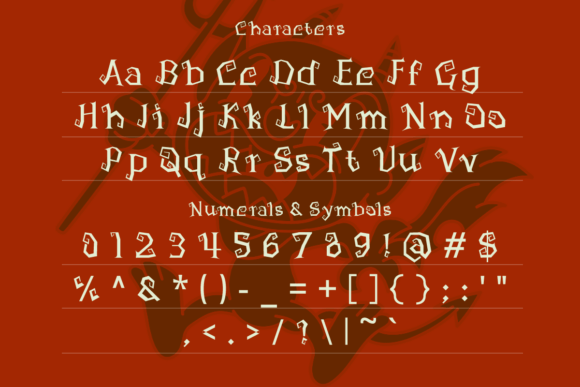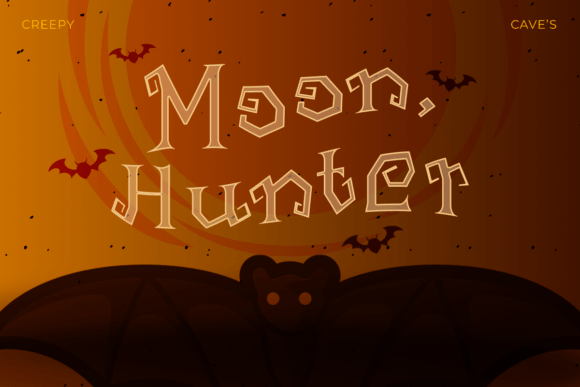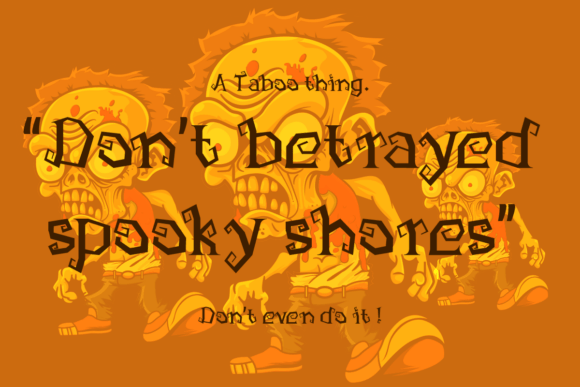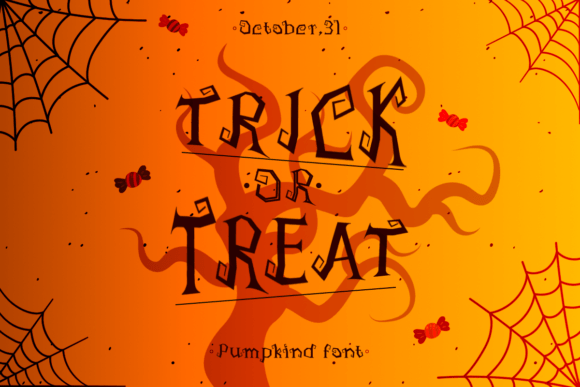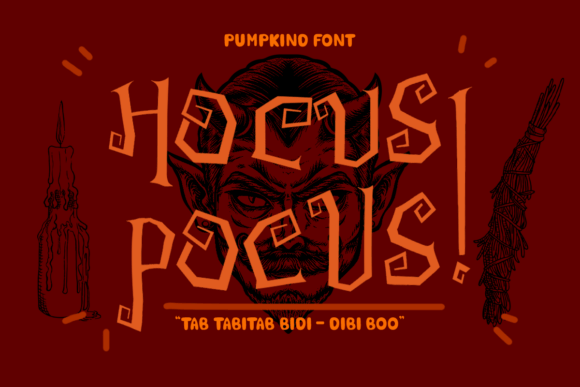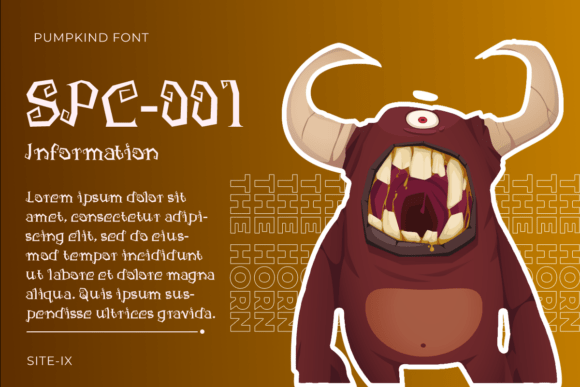
Introduction to Pumpkind Font
As the leaves begin to change colors and the nights grow darker, designers start thinking about how to capture the eerie essence of Halloween in their creative projects. It’s the perfect time to break out the cobwebs, dust off the old cauldrons, and get creative with a font that embodies the spooky spirit of the season.
Enter Pumpkind Font, a whimsical yet spooky display font that’s sure to add a touch of macabre magic to any design project. With its quirky letterforms, ghostly flair, and mysterious accents, this font is a versatile design resource that’s perfect for designers looking to create high-quality, kid-friendly or darker seasonal projects.
Key Features of Pumpkind Font
- Pumpkind Font is a high-quality design resource ideal for creative projects that require a unique and stylish touch.
- Features a large character set, including uppercase and lowercase letters, numbers, and punctuation marks, making it suitable for a variety of applications.
- Its unique characteristics, such as the distinctive letterforms and elegant lines, set it apart from other fonts and make it a valuable addition to any design collection.
- Supports a wide range of languages, including English, Spanish, French, and many others, making it a versatile design resource for international projects.
Honest Review: Pumpkind Font
I recently stumbled upon the Pumpkind Font while searching for a design resource to enhance my creative project. At first glance, I was impressed with the high-quality design and the variety of styles it offers.
- ✨ The font is incredibly versatile and can be used for both digital and print designs.
- ⚠️ The font may not be suitable for very small text sizes, as the details can get lost.
- ⚠️ Some users may find the font to be a bit too bold or overpowering, depending on the design context.
Overall, I’m impressed with the Pumpkind Font and would definitely consider it as a design resource for my future projects. Its high quality and versatility make it a great addition to any designer’s toolkit.
Pumpkind Font
The Pumpkind Font is a unique and versatile design resource perfect for any creative project. It’s available for free download, making it an excellent addition to your design arsenal.
Tips for Getting the Most Out of Pumpkind Font
To get the most out of the Pumpkind Font, use it with a transparent background to create eye-catching designs. You can also experiment with different font sizes and styles to add visual interest to your projects.
Fontin is a high-quality, elegant serif font suitable for creative projects that require a sophisticated and classic look. It’s ideal for use in print materials, such as business cards, posters, and brochures. When to use: For designs that need a touch of sophistication and elegance. How it compares to Pumpkind Font: Fontin has a more classic and traditional feel compared to the more modern and playful Pumpkind Font.